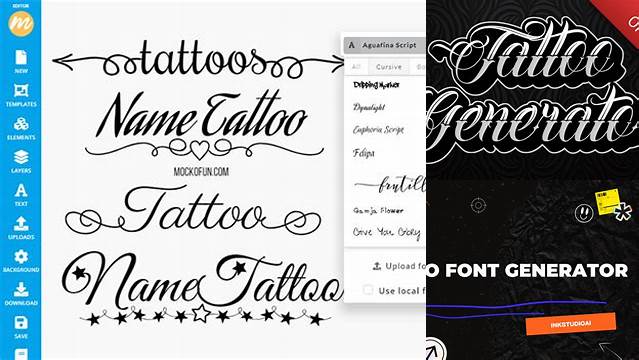
Free Tattoo Script Font Generator: Design Your Ink!
Hey guys! Getting a tattoo is a big deal, and choosing the right font is just as important as the design itself. If you're looking for a tattoo script font generator free, you've come to the right place! In this article, we'll dive deep into everything you need to know about tattoo script fonts, how to find the perfect one for your ink, and where to find free generators that can help you bring your vision to life. Let's get started!
1. Understanding the Appeal of Script Fonts for Tattoos
When it comes to tattoos, script fonts hold a special place in many hearts. They bring an elegant and flowing touch to any design, making your inked words look more like a piece of art than just plain text. Script fonts are often chosen for their ability to convey a sense of sophistication and personality, adding a unique flair to your body art. But why are they so popular? Well, think about it: a script font can transform a simple quote or name into something visually stunning, almost like a handwritten masterpiece permanently etched on your skin. The loops, curves, and flourishes of script fonts can add depth and character that blocky, straightforward fonts simply can't match.
Script fonts have a long and rich history, often associated with calligraphy and formal handwriting. This heritage adds a certain timelessness to tattoos that use them. Whether you're going for a classic, old-school vibe or something more modern and edgy, a well-chosen script font can set the tone perfectly. Plus, the sheer variety of script styles means there's something out there for everyone. From delicate, airy scripts to bold, dramatic ones, the possibilities are endless. When you're considering a script font for your tattoo, you're not just choosing letters; you're choosing a style, a mood, and a statement that will stay with you forever. And with so many free tattoo script font generators available, finding the perfect match has never been easier! So, letβs explore the world of script fonts and see how they can elevate your tattoo game.
2. Exploring Different Styles of Tattoo Script Fonts
Okay, so you're hooked on the idea of a script font for your tattoo, but where do you even begin? The world of script fonts is vast and varied, each style offering a unique feel and aesthetic. Let's break down some of the most popular styles you'll encounter when searching for a tattoo script font generator free. First up, we have the classic calligraphy styles. These fonts are inspired by traditional handwriting and often feature elegant, flowing strokes with a timeless appeal. Think of them as the quintessential script fonts β perfect for adding a touch of sophistication to your ink. Then there are the cursive fonts, which mimic the look of joined-up handwriting. Cursive scripts can range from delicate and airy to bold and dramatic, making them super versatile for all sorts of tattoo designs.
If you're after something with a bit more flair, you might want to consider flourished scripts. These fonts take the elegance of calligraphy and cursive styles and crank it up a notch with extra swirls, loops, and decorative elements. They're great for making a statement and adding a touch of drama to your tattoo. On the other end of the spectrum, we have simple scripts. These fonts are all about clean lines and readability, making them ideal for longer quotes or phrases. They might not have the same level of flourish as other styles, but their understated elegance can be just as impactful. For those who want something a bit more unique, there are modern script fonts. These fonts often incorporate contemporary design elements, resulting in a fresh and stylish look. They can be a great choice if you're after a script that feels both timeless and on-trend.
And let's not forget vintage and retro scripts. These fonts draw inspiration from past eras, offering a nostalgic and classic feel. They're perfect for tattoos that pay homage to a particular time or style. No matter your personal taste, there's a script font out there that's perfect for your tattoo. The key is to explore different styles and see what resonates with you. And with a tattoo script font generator free, you can experiment with various options until you find the one that truly speaks to you. So, go ahead and dive in β the perfect font is waiting to be discovered!
3. Key Considerations When Choosing a Script Font for Your Tattoo
Choosing the right script font for your tattoo is like picking the perfect frame for a masterpiece β it can truly enhance the overall impact. But before you jump into using that tattoo script font generator free, let's talk about some key considerations to keep in mind. First and foremost, think about readability. A beautiful script font is no good if you can't actually read what it says! Some fonts, especially those with elaborate flourishes, can become difficult to decipher when inked onto the skin. So, make sure the font you choose is clear and legible, even from a distance.
Next up, consider the size and placement of your tattoo. A delicate, fine-lined script might look stunning on a small area, but it could get lost on a larger canvas. Conversely, a bold, dramatic script might be too overpowering for a subtle tattoo. Think about how the font will look in proportion to the rest of your design and the area of your body where it will be placed. Font weight also plays a crucial role. A super thin script might fade or blur over time, especially if it's inked in a high-friction area. Opting for a slightly thicker font can help ensure your tattoo stays sharp and clear for years to come.
Another important factor is the overall style of your tattoo. Does the script font complement the other elements of your design? If you're going for a classic, traditional look, a vintage-inspired script might be the perfect fit. But if your tattoo has a more modern vibe, a sleek, contemporary script could be a better choice. Don't be afraid to mix and match styles, but always make sure they harmonize well together. Finally, think about the longevity of the font. Trends come and go, but a tattoo is (hopefully) forever. Choose a script font that you'll still love years down the line. Timeless styles like classic calligraphy and simple cursive scripts are often a safe bet. By keeping these considerations in mind, you can ensure your script font tattoo looks amazing now and for years to come. So, take your time, explore different options, and choose a font that truly speaks to you.
4. Top Free Tattoo Script Font Generators Online
Alright, let's get down to the nitty-gritty: where can you actually find a tattoo script font generator free? The good news is, the internet is brimming with options! But with so many choices, it can be tough to know where to start. Don't worry, we've got you covered. We've rounded up some of the top free tattoo script font generators online to help you kickstart your search for the perfect ink. One of the most popular options is FontGenerator.io. This website offers a wide range of script fonts, along with a handy preview tool that lets you see how your chosen text will look in different styles. It's super easy to use β just type in your text, scroll through the font options, and find the one that catches your eye.
Another great resource is TattooFontGenerator.com. As the name suggests, this site is specifically geared towards tattoo fonts, so you'll find plenty of script styles to choose from. It also has a cool feature that allows you to customize the size, color, and background of your text, giving you a realistic preview of your tattoo design. If you're looking for something a bit more unique, check out CoolText.com. While it's not exclusively a tattoo font generator, CoolText offers a ton of stylish script fonts, along with various customization options like shadows, outlines, and gradients. It's a great place to experiment and add some extra flair to your design.
Don't forget about DaFont.com, either. This website is a treasure trove of free fonts, including a vast selection of script styles. You can easily filter your search by category, allowing you to narrow down your options and find the perfect font for your tattoo. And for a more streamlined experience, try 1001 Free Fonts. This site offers a clean and user-friendly interface, making it a breeze to browse through its extensive collection of script fonts. With so many amazing free tattoo script font generators at your fingertips, there's no excuse not to explore your options. So, grab your laptop, fire up your browser, and start experimenting! The perfect font for your tattoo is just a few clicks away.
5. Step-by-Step Guide to Using a Tattoo Script Font Generator
Okay, so you've found a tattoo script font generator free that looks promising β awesome! But how do you actually use it to create your perfect tattoo design? Don't worry, it's usually a pretty straightforward process. Let's walk through a step-by-step guide to help you get started. First things first, head over to the website of your chosen font generator. Most of these tools have a clean and intuitive interface, so you should be able to find your way around easily.
Once you're on the site, look for the text input box. This is where you'll type in the word, phrase, or quote you want to use for your tattoo. Take your time and double-check your spelling β you don't want any permanent typos! After you've entered your text, it's time to explore the font options. Most font generators offer a wide variety of script styles to choose from, so scroll through the list and see what catches your eye. Pay attention to the font's readability, style, and overall vibe β does it match the look and feel you're going for?
Once you've found a few fonts you like, it's time to customize your design. Many font generators allow you to adjust the size, color, and other attributes of your text. Experiment with different settings to see how they affect the overall look of your tattoo. Some generators even let you add special effects like shadows, outlines, and gradients. Don't be afraid to get creative and try new things! Once you're happy with your design, it's time to save or download it. Most font generators offer options to download your design as an image file (like a PNG or JPG) or to copy the text to your clipboard. Choose the option that works best for you, and make sure to save your design in a safe place.
Finally, share your design with your tattoo artist. They can provide valuable feedback and help you refine your design if needed. They can also make sure the font you've chosen is suitable for tattooing and will hold up well over time. And that's it! With these simple steps, you can use a tattoo script font generator to create a stunning design for your next ink. So, go ahead and give it a try β you might just surprise yourself with what you come up with!
6. The Importance of Readability in Tattoo Script Fonts
Okay, let's talk about something super important when it comes to script fonts for tattoos: readability. I know, we've touched on this before, but it's worth drilling down on. You can find the most beautiful tattoo script font generator free out there, but if your tattoo ends up looking like a tangled mess of lines, what's the point? A tattoo is a form of self-expression, a statement you're making to the world. And if no one can actually decipher what your tattoo says, well, that statement might get a little lost in translation.
Think about it: you're choosing a script font because you love the way it looks, the elegance and flair it adds to your design. But those swirls and flourishes can sometimes come at the expense of clarity. Fonts with intricate details or super-fine lines can be particularly tricky, especially when inked onto skin. Over time, ink can spread slightly, causing those delicate lines to blur together. What once looked like a perfectly formed letter can morph into something a little less recognizable. That's why boldness and clarity are key. Choosing a script font with well-defined strokes and ample spacing between letters can make all the difference. The thicker the lines, the less likely they are to fade or blur over time. And the more space there is between the letters, the easier it will be to read your tattoo from a distance.
Consider the placement of your tattoo, too. Areas with a lot of curves and contours, like your wrist or ankle, can make it harder to read a script font. The letters might wrap around the curves in a way that distorts their shape. If you're planning a tattoo in one of these areas, it's extra important to choose a font that's clear and legible. Remember, readability isn't just about making your tattoo easy for others to read. It's also about ensuring that you can still read it years from now. You're the one who's going to be looking at your tattoo every day, so you want to make sure it's something you can appreciate and understand for a lifetime. So, when you're browsing through those free tattoo script font generators, keep readability top of mind. Don't let a pretty font fool you β choose one that's both beautiful and clear, and your tattoo will be a masterpiece for years to come.
7. Combining Script Fonts with Other Tattoo Elements
So, you've nailed down the perfect script font using that tattoo script font generator free β fantastic! But now what? A script font tattoo doesn't have to stand alone. In fact, combining it with other tattoo elements can take your design to a whole new level. Think of your tattoo as a story, and the script font is just one chapter. Adding visuals, symbols, or other fonts can add depth and meaning to your ink, making it even more unique and personal. One popular option is to pair your script font with a visual element, like a flower, a bird, or an abstract shape. This can create a beautiful contrast between the flowing lines of the script and the solid form of the image. For example, a delicate script font paired with a blooming rose can convey a sense of romance and beauty, while a bold script combined with a geometric shape might give off a more modern and edgy vibe.
Another cool idea is to incorporate symbols into your tattoo design. Symbols can add a layer of meaning to your tattoo, turning it into a visual representation of your beliefs, values, or personal story. For instance, if you're getting a tattoo of a meaningful quote, you could add a symbol that resonates with the quote's message. A compass, an anchor, or even a simple heart can add depth and significance to your script font tattoo. Don't be afraid to mix and match fonts, too! Pairing your script font with a different style of font can create an interesting visual contrast. A bold sans-serif font, for example, can provide a striking counterpoint to the elegance of a script font. Just be sure to choose fonts that complement each other and don't clash.
When combining script fonts with other elements, it's important to think about balance and composition. You want your tattoo to look cohesive and harmonious, not cluttered or chaotic. Consider the size, placement, and spacing of each element in your design. A skilled tattoo artist can help you create a well-balanced tattoo that incorporates your script font and other elements seamlessly. Ultimately, the key to combining script fonts with other tattoo elements is to have fun and get creative. Your tattoo is a reflection of your personality, so let your imagination run wild and create something that truly represents you. So, go ahead and experiment with different combinations β you might just surprise yourself with the amazing designs you come up with!
8. Ensuring Your Tattoo Script Font is Unique
Okay, so you've been playing around with a tattoo script font generator free, and you've found a font you absolutely love. That's awesome! But before you rush off to the tattoo parlor, let's talk about something important: making sure your tattoo is unique. While free font generators are a fantastic resource, they're also used by tons of other people. This means there's a chance someone else out there might end up with a tattoo that looks pretty similar to yours. Now, there's nothing wrong with sharing a font, but if you're after a truly one-of-a-kind piece of ink, you'll want to take some steps to personalize your design.
One of the easiest ways to add your own flair is to customize the font itself. Many tattoo artists are skilled at tweaking fonts to create a unique look. They can adjust the thickness of the lines, add flourishes, or even combine elements from different fonts to create something completely original. Don't be afraid to share your ideas with your artist β they're experts at translating your vision into reality. Another great way to make your tattoo unique is to incorporate your script font into a larger design. We talked about this earlier, but it's worth reiterating. Adding visuals, symbols, or other design elements can help your tattoo stand out from the crowd. Think about what's meaningful to you and find ways to incorporate those elements into your design.
Consider the placement of your tattoo, too. Where you choose to ink your script font can have a big impact on its overall look and feel. A script font tattoo on your wrist will look very different from the same font tattooed across your back. Think about the contours of your body and how the font will flow with your natural curves. Finally, remember that your tattoo artist is your best resource for creating a unique design. They have the experience and expertise to help you bring your vision to life. Don't hesitate to ask for their input and guidance. They can offer valuable suggestions and help you create a tattoo that's not only beautiful but also truly unique to you. So, go ahead and use that free tattoo script font generator as a starting point, but don't be afraid to put your own spin on things. With a little creativity and collaboration, you can create a tattoo that's as individual as you are.
9. The Role of a Tattoo Artist in Script Font Selection
Okay, you've spent hours scouring the internet, playing with that tattoo script font generator free, and you've finally found a font you think is perfect. Awesome! But before you make that appointment, let's talk about the crucial role your tattoo artist plays in the script font selection process. Your tattoo artist isn't just there to ink your design; they're also a valuable resource for advice and guidance. They have the experience and expertise to help you choose a font that will not only look great but also hold up well over time. One of the most important things your tattoo artist will consider is the font's suitability for tattooing. Not all fonts are created equal, and some are simply better suited for skin than others. Fonts with super-fine lines or intricate details can be tricky to ink and may not heal well. Your artist can help you choose a font that's both beautiful and practical.
They can also advise you on font size and placement. A font that looks great on paper might not translate well to skin if it's too small or placed in the wrong area. Your artist can help you determine the optimal size and placement for your script font, taking into account factors like your body's contours and the overall design of your tattoo. Readability is another key consideration. We've talked about this before, but it's worth repeating. Your tattoo artist can assess the font's readability and make sure it will be clear and legible, even after it's been inked. They can also suggest modifications to the font to improve its clarity if needed.
Your tattoo artist can also help you personalize your script font. As we discussed earlier, making your tattoo unique is important. Your artist can tweak the font, add flourishes, or even combine elements from different fonts to create a custom design that's all your own. Finally, trust your tattoo artist's judgment. They're professionals who have seen it all, and they want your tattoo to look its best. If they have concerns about a particular font or design, listen to their advice. They're there to help you make informed decisions and create a tattoo that you'll love for years to come. So, don't hesitate to involve your tattoo artist in the script font selection process. Their expertise can make all the difference in the final result.
10. Long-Term Care for Your Tattoo Script Font
Alright, you've got your stunning script font tattoo, and it looks amazing! Now, let's talk about long-term care. Because remember, a tattoo is for life, and taking proper care of it is crucial to keep it looking its best. We're not just talking about the initial healing process here; we're talking about years down the road. That gorgeous script font you carefully selected using a tattoo script font generator free deserves to stay crisp and clear for as long as possible. The first and most important thing is sun protection. The sun is the enemy of tattoos. UV rays can fade the ink over time, causing your tattoo to lose its vibrancy. Always, always apply sunscreen to your tattoo, especially when you're spending time outdoors. Choose a high SPF (30 or higher) and reapply it frequently, just like you would with any other exposed skin.
Moisturizing is another key step in long-term tattoo care. Keeping your skin hydrated will help your tattoo stay supple and prevent it from drying out and cracking. Use a fragrance-free, hypoallergenic moisturizer and apply it regularly, especially after showering or swimming. Avoid harsh chemicals and abrasive products. Things like strong soaps, perfumes, and exfoliants can irritate your tattoo and cause it to fade prematurely. Stick to gentle, natural products whenever possible. And speaking of irritants, be mindful of friction. Constant rubbing from clothing or jewelry can wear down your tattoo over time. Try to wear loose-fitting clothing over your tattoo, and avoid wearing jewelry that might rub against it.
Stay hydrated from the inside out. Drinking plenty of water helps keep your skin healthy and hydrated, which is good for your tattoo as well as your overall well-being. Finally, consider touch-ups. Over time, tattoos can fade or blur, especially in areas that are exposed to the sun or friction. A touch-up can restore the vibrancy and clarity of your tattoo, keeping it looking fresh and new. Talk to your tattoo artist about touch-up options and how often you should consider getting them. By following these long-term care tips, you can ensure your script font tattoo stays beautiful for years to come. Remember, a little bit of effort can go a long way in preserving your inked masterpiece.
11. Common Mistakes to Avoid When Choosing a Tattoo Script Font
Okay, let's get real for a minute. Choosing a tattoo script font can be exciting, especially when you're playing around with a tattoo script font generator free, but it's also easy to make mistakes. And since tattoos are pretty permanent, it's crucial to avoid those pitfalls. So, let's dive into some common blunders people make when choosing script fonts for their ink, so you can steer clear and make the best decision for your body art. First up, prioritizing style over readability. We've hammered this point home before, but it's worth repeating: a gorgeous font is useless if no one can read it. Those intricate swirls and delicate lines might look stunning on a screen, but they can quickly become a blurry mess on skin, especially over time. Always choose a font that's clear and legible, even from a distance.
Another big mistake is not considering the size and placement of your tattoo. A tiny, delicate script might look beautiful on your wrist, but it could get lost on your back. Conversely, a huge, bold script might be overpowering on a small area. Think about how the font will look in proportion to your body and the surrounding design elements. Ignoring the longevity of the font is another common error. Trends come and go, but a tattoo is (hopefully) forever. Choosing a trendy font might seem like a good idea now, but you might regret it years down the line. Opt for a timeless style that you'll love for years to come. Not consulting with your tattoo artist is a major no-no. Your artist is a professional who can offer valuable advice and guidance. They can help you choose a font that's suitable for tattooing, will hold up well over time, and complements your overall design. Don't be afraid to ask for their input.
Rushing the decision is another mistake to avoid. Choosing a tattoo font is a big decision, so take your time and do your research. Don't settle for the first font you see. Explore different options, experiment with different styles, and make sure you're 100% happy with your choice. Finally, failing to proofread your text is a classic blunder. Typos in tattoos are no laughing matter. Double-check, triple-check, and even quadruple-check your text before you commit to getting it inked. It's always a good idea to have a friend or family member proofread it as well, just to be extra safe. By avoiding these common mistakes, you can ensure that your script font tattoo looks amazing and lasts a lifetime.
12. Script Fonts for Different Tattoo Styles
Okay, guys, let's talk about versatility! You've probably been tinkering with that tattoo script font generator free, and now you're wondering,